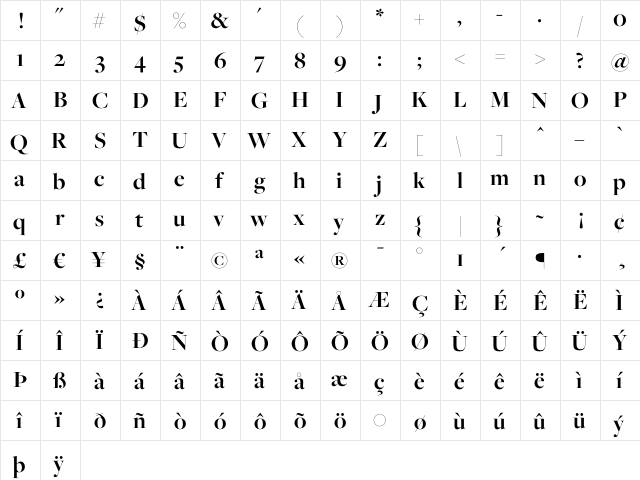
Freight Big Bold
| Foundry | Joshua Darden & Phil's Fonts, Inc |
| Designer | Joshua Darden |
Design Context for Freight Typeface
Freight is a composed and adaptable typeface that performs quietly and consistently across a wide range of design contexts. The heavy weight commands attention and anchors typographic hierarchies.